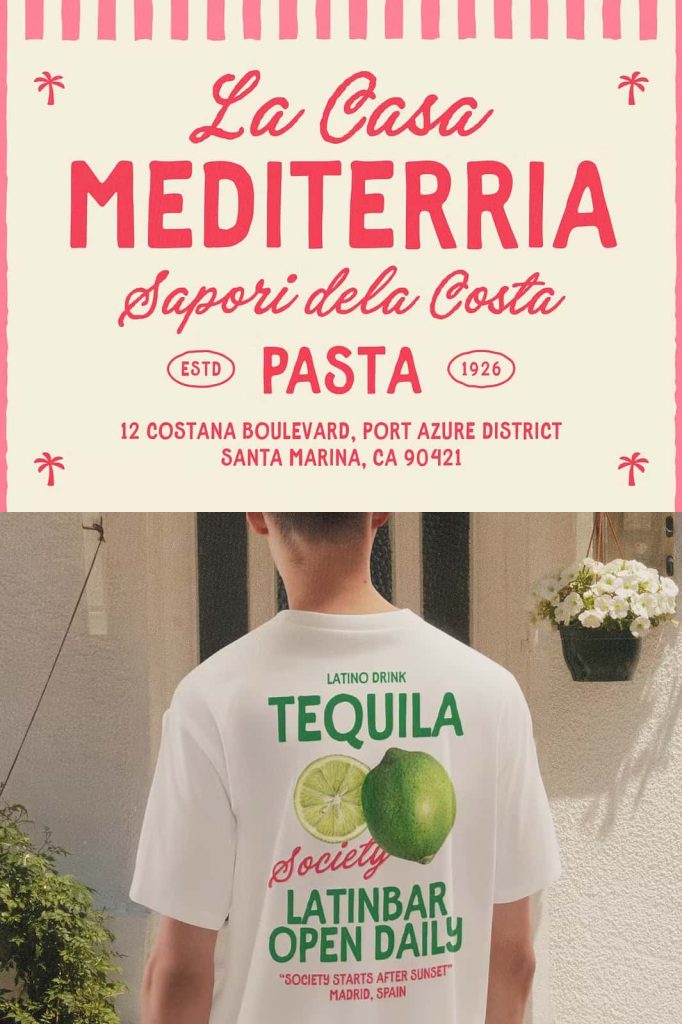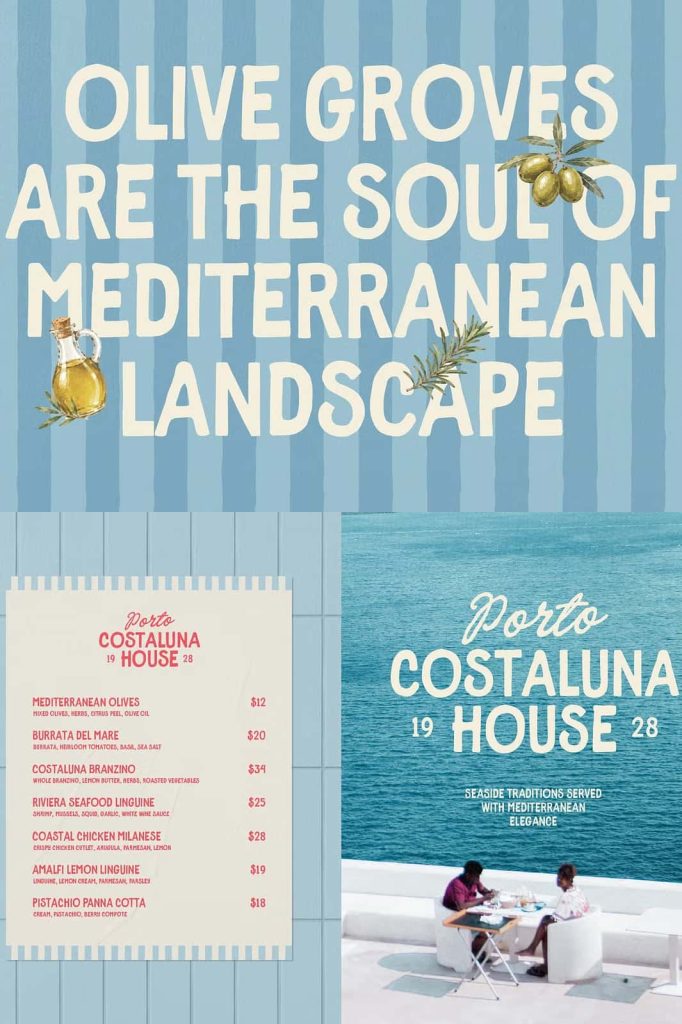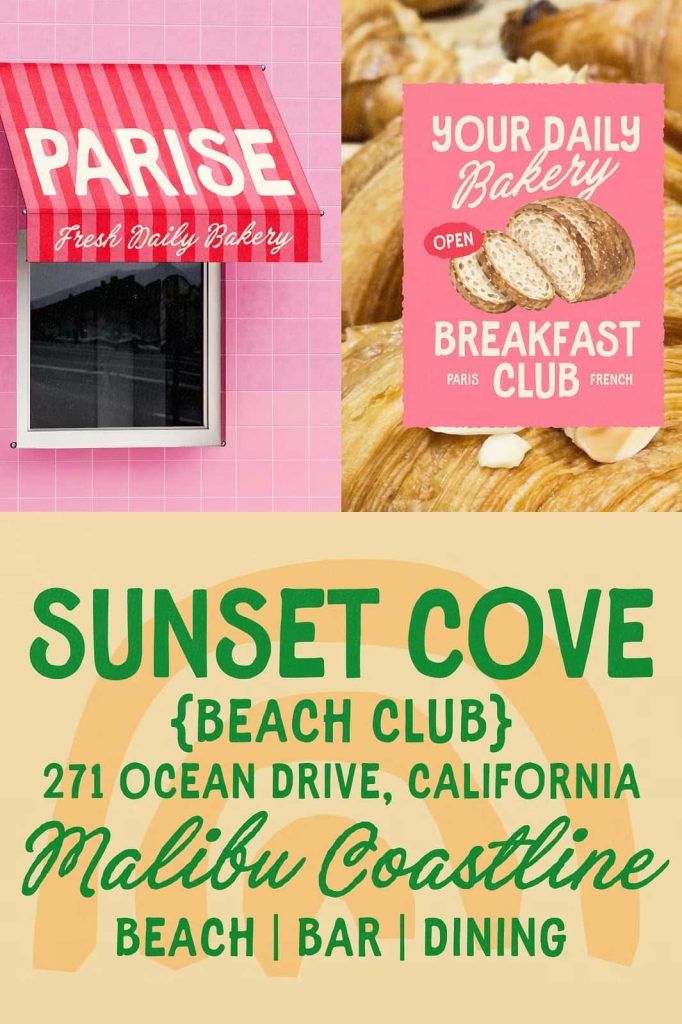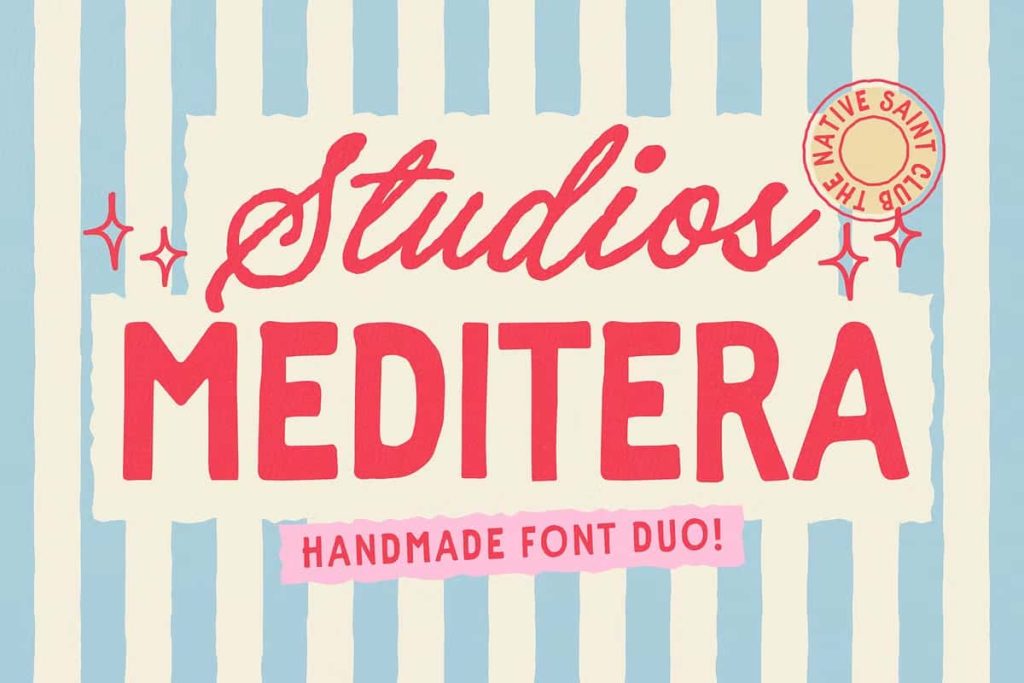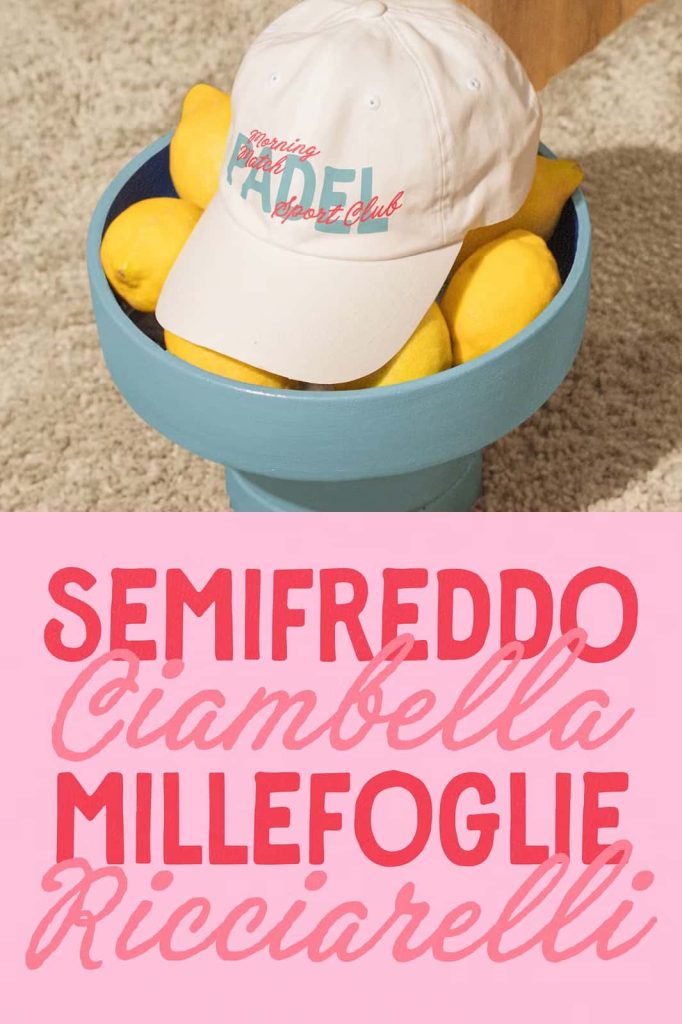
Studios Meditera – A Warm and Natural Mediterranean Font Duo
Studios Meditera is a charming font duo inspired by the relaxed beauty of Mediterranean life. Drawing from handmade café signage, coastal storefronts, vintage packaging, local restaurants, and everyday branding, this expressive type pairing brings warmth and personality to modern design projects.
The collection combines an organic script with a hand-drawn sans serif, creating a natural contrast that feels friendly, approachable, and full of character. The flowing script adds movement and handcrafted elegance, while the sans serif provides structure and clarity. Together, they create a versatile typographic system that can support everything from logos and packaging to menus, signage, social media graphics, and lifestyle branding.
Studios Meditera captures the feeling of discovering a small café along a sunlit coastal street, browsing a vintage shop, or reading a hand-painted sign outside a local Mediterranean business. Its typography communicates that same relaxed atmosphere through organic forms and imperfect handcrafted details.
Inspired by Mediterranean Charm
The visual personality of Studios Meditera comes from the distinctive character of Mediterranean design. Its inspiration reflects warm coastal environments, small independent businesses, traditional cafés, artisan shops, vintage product labels, and casual storefront lettering.
Rather than creating a rigid or overly polished appearance, the duo embraces a more natural approach. The hand-drawn qualities give the typography a sense of human touch, making each design feel more personal and authentic.
Use Studios Meditera when your project needs a relaxed, sunny, creative, or welcoming atmosphere. Its Mediterranean influence works especially well for brands that want to communicate craftsmanship, hospitality, simplicity, and an appreciation for everyday experiences.
An Organic Script with Expressive Movement
The organic script provides the expressive side of the Studios Meditera duo. Its flowing character introduces movement and personality, making it an excellent choice for brand names, short phrases, headlines, signatures, and decorative typography.
Use the script when you want your lettering to feel personal and handcrafted. It can create the impression of a business owner writing a sign by hand or an artisan adding a personal touch to product packaging.
The script can work beautifully as a primary logo style, but it also performs well as an accent. Use it for selected words within a headline or combine it with the sans serif to create contrast between expressive and structured lettering.
A Hand-Drawn Sans Serif for Balance
The hand-drawn sans serif provides the practical foundation of the duo. While it maintains a clear and straightforward structure, its handcrafted character keeps it from feeling sterile or overly mechanical.
Use the sans serif for supporting text, secondary headlines, packaging information, menu items, labels, signage, and brand descriptions. Its cleaner construction balances the organic script and gives the overall design a strong sense of hierarchy.
This combination allows Studios Meditera to remain expressive without sacrificing organization. The script creates personality, while the sans serif helps communicate information clearly.
Create Memorable Mediterranean Branding
Studios Meditera makes a natural choice for branding projects that want to communicate warmth and authenticity. Its combination of script and sans serif provides enough contrast to create distinctive logos and complete visual identities.
Use the script for the main brand name and the sans serif for supporting information. Alternatively, use the sans serif as the primary identity and introduce the script as a decorative accent. This flexibility lets you adapt the duo to different industries and brand personalities.
The font duo works especially well for cafés, restaurants, bakeries, boutique hotels, lifestyle brands, artisan shops, food businesses, fashion labels, and creative studios. Its relaxed Mediterranean character can help establish a recognizable visual identity that feels inviting and approachable.
Perfect for Café and Restaurant Signage
The inspiration from handmade café signage makes Studios Meditera particularly effective for hospitality design. Use it for restaurant logos, café signs, menu headings, chalkboard-style graphics, table cards, promotional posters, and takeaway packaging.
The organic script can create a welcoming restaurant name or featured menu item, while the hand-drawn sans serif can organize practical information. This combination produces a cohesive look that feels handcrafted and suitable for an independent local business.
Pair the typography with warm photography, simple illustrations, textured backgrounds, or Mediterranean-inspired graphic elements to create a complete visual atmosphere.
Choose Studios Meditera when your design needs a friendly and authentic visual voice. Whether you are creating a coastal café identity, a handmade product label, a boutique lifestyle brand, or a modern Mediterranean campaign, this font duo helps your typography communicate warmth, craftsmanship, and effortless character.